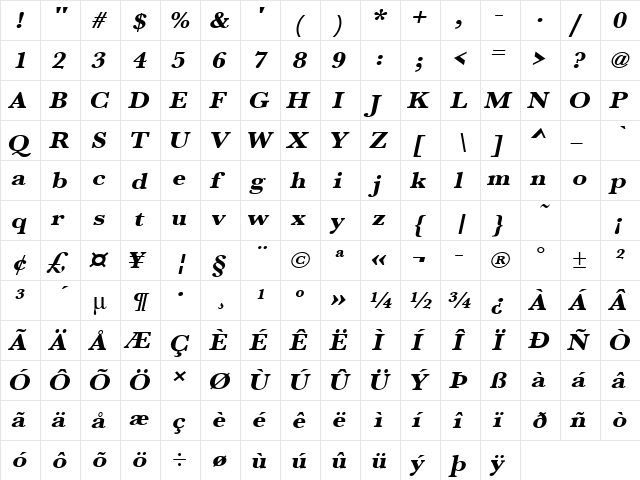
URWBaskerTExtBolExtWid Oblique
Design Context for URWBaskerTExtBolExtWid Typeface
URWBaskerTExtBolExtWid offers clean, dependable letterforms without strong stylistic allegiance, making it a practical choice for designers who need flexibility. Its italic angle brings a sense of urgency and motion to the letterforms.
Pro Tip: Try URWBaskerTExtBolExtWid for annotation and caption copy alongside an upright companion — the contrast in angle creates a dynamic but ordered typographic system.